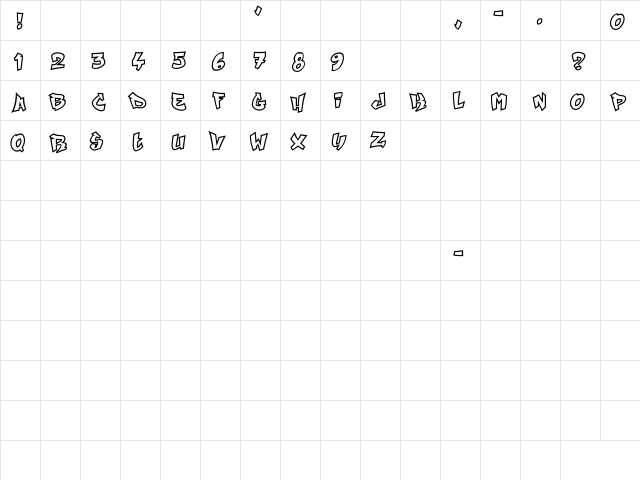
City Player Regular
Design Context for City Player Typeface
City Player is a composed and adaptable typeface that performs quietly and consistently across a wide range of design contexts.